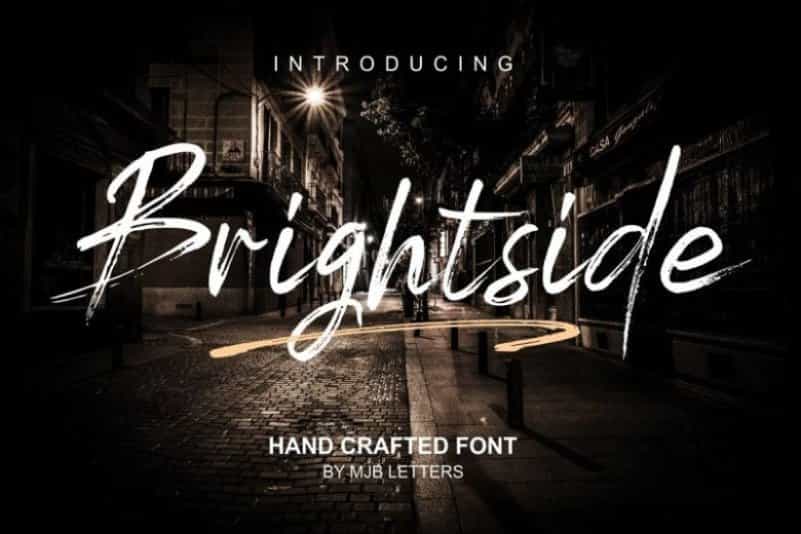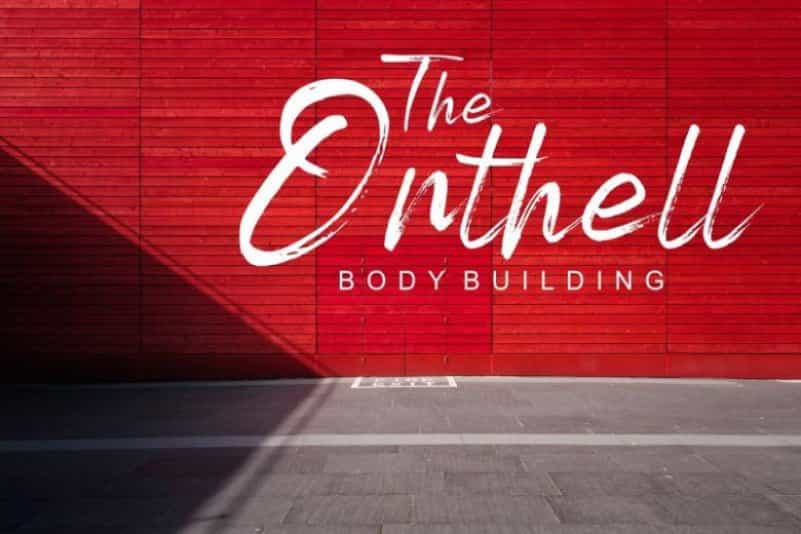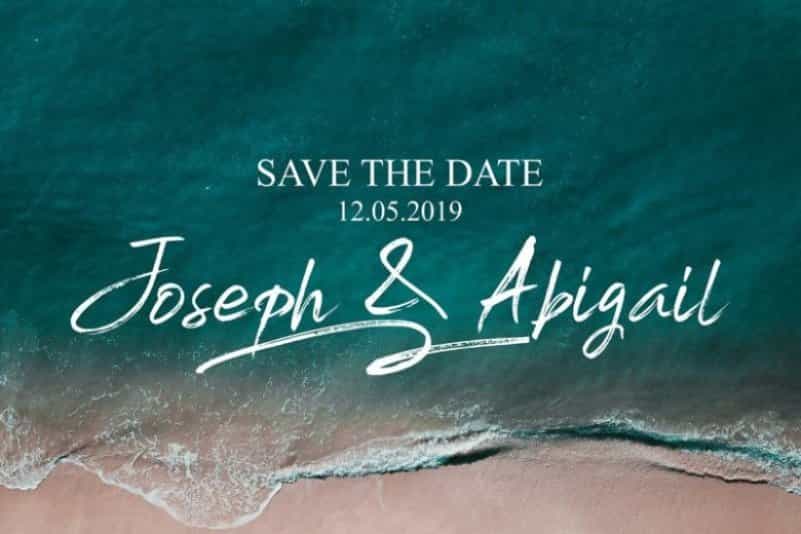
Introducing Brightside Font. Brightside Brush Font is a unique textured brush font that can be used for invitations, brand projects, logos, greeting cards, product packaging, posters blogs and other things related to personal charm etc. In Brightside there are several handmade creating features in various styles like uppercase and lowercase letters numbering punctuation as well as ligature.